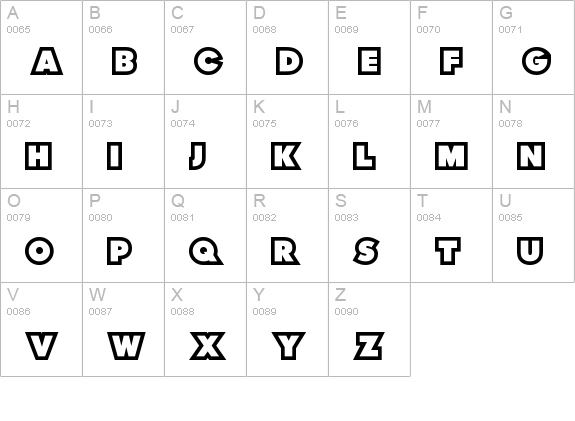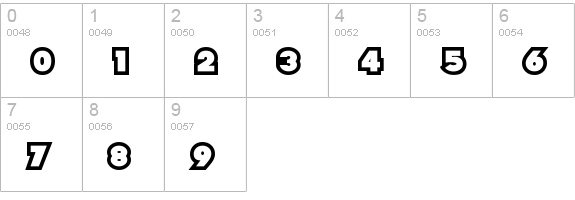
Introducing Thunder Lord, a bold and powerful font that commands attention with its electrifying presence. This font is inspired by the might and intensity of thunderstorms, capturing the raw energy and ferocity within each letterform. With its striking and dynamic design, Thunder Lord is perfect for headline text, logo designs, and any project that requires a strong and impactful visual statement. Each letter is meticulously crafted to showcase a harmonious blend of strength and elegance, making it versatile for both modern and classic designs. The Thunder Lord font comes in a variety of weights and styles, allowing you to customize and experiment with different looks and feels. Whether you want to create a bold and dramatic effect or a sleek and sophisticated aesthetic, this font has you covered. But what truly sets Thunder Lord apart is its uniqueness. It stands out from the crowd, demanding attention and leaving a lasting impression on anyone who encounters it. This font is the epitome of individuality and creativity. And the best part? Thunder Lord is available for free! You can easily download this font at FontsMarket.com, where you will find a vast collection of high-quality fonts to enhance your design projects. Embrace the power of Thunder Lord and unleash your creativity today!